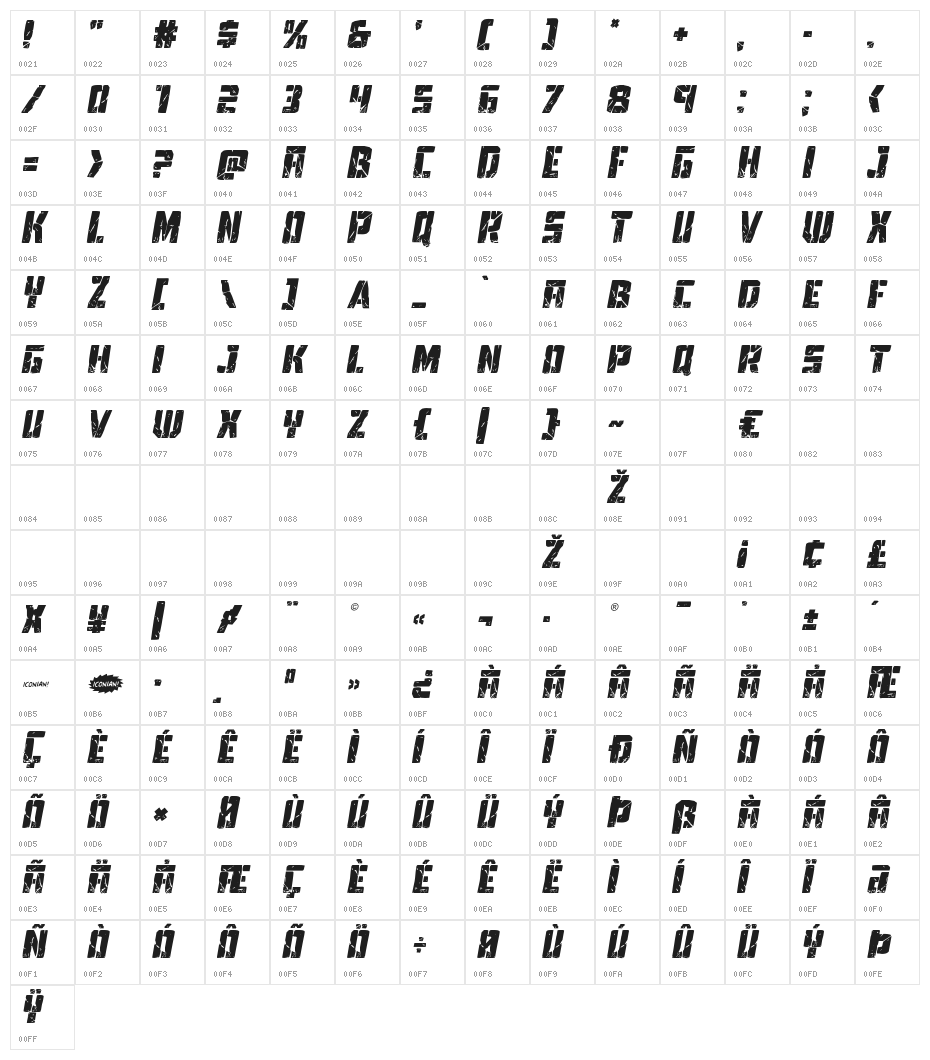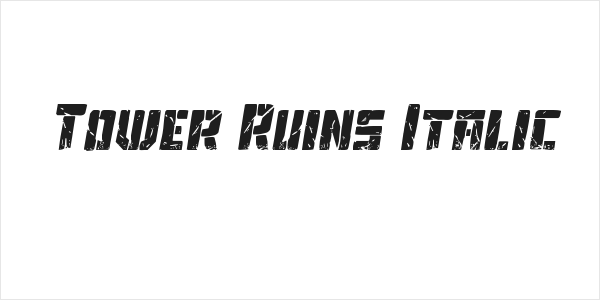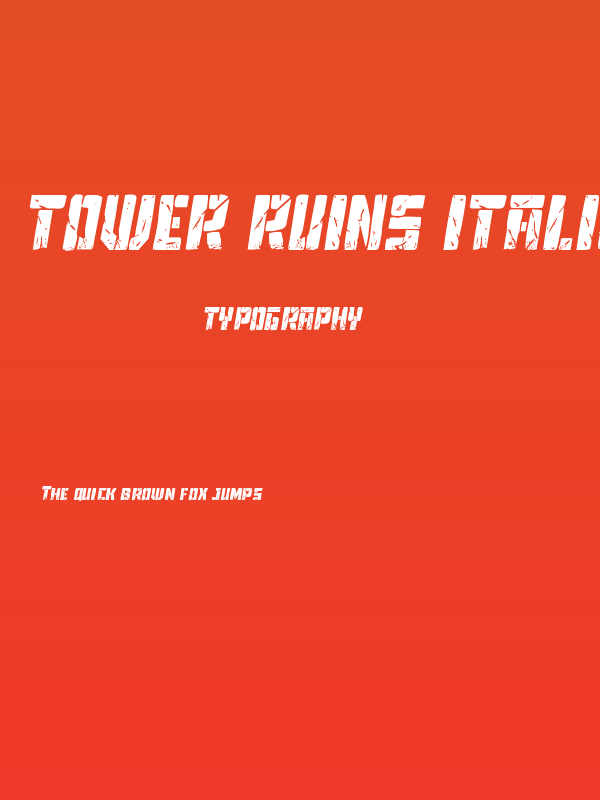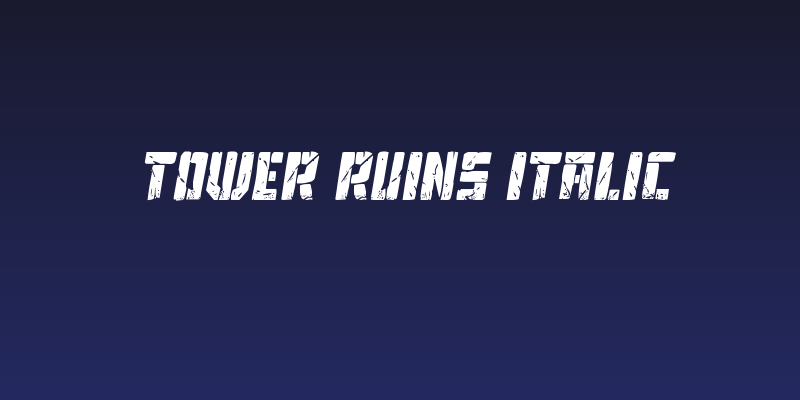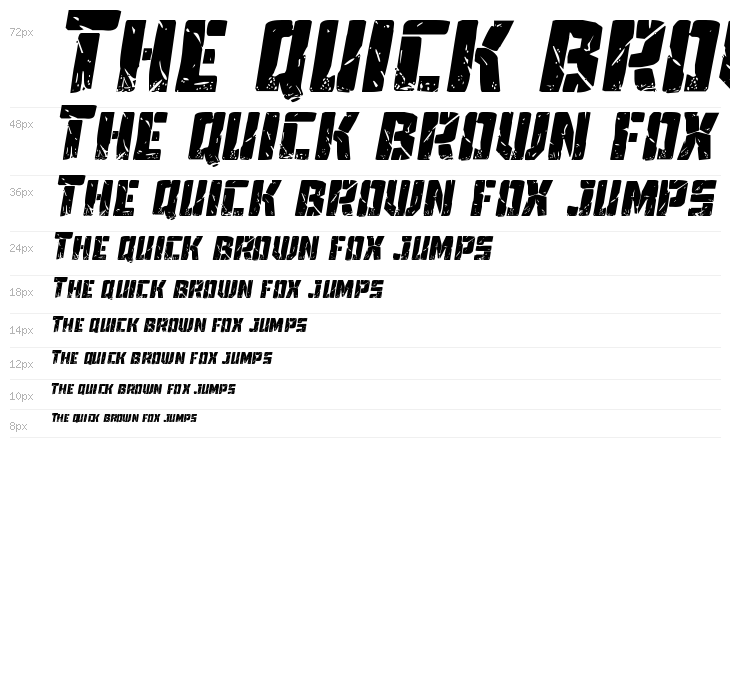
Tower Ruins Italic Font
Tower Ruins Italic Description
This font features a bold, distressed style with a rugged, textured appearance. The characters are heavily stylized with a rough, uneven surface that gives the impression of erosion or decay. The uppercase and lowercase letters maintain a consistent height, creating a uniform look despite the chaotic texture. The numbers and special characters follow the same design, ensuring a cohesive appearance across all glyphs. This font is ideal for projects that require a gritty, urban aesthetic or a theme of destruction and decay.
| Proposed Projects | Ideal for posters, album covers, video game graphics, and any project needing a gritty, urban aesthetic. |